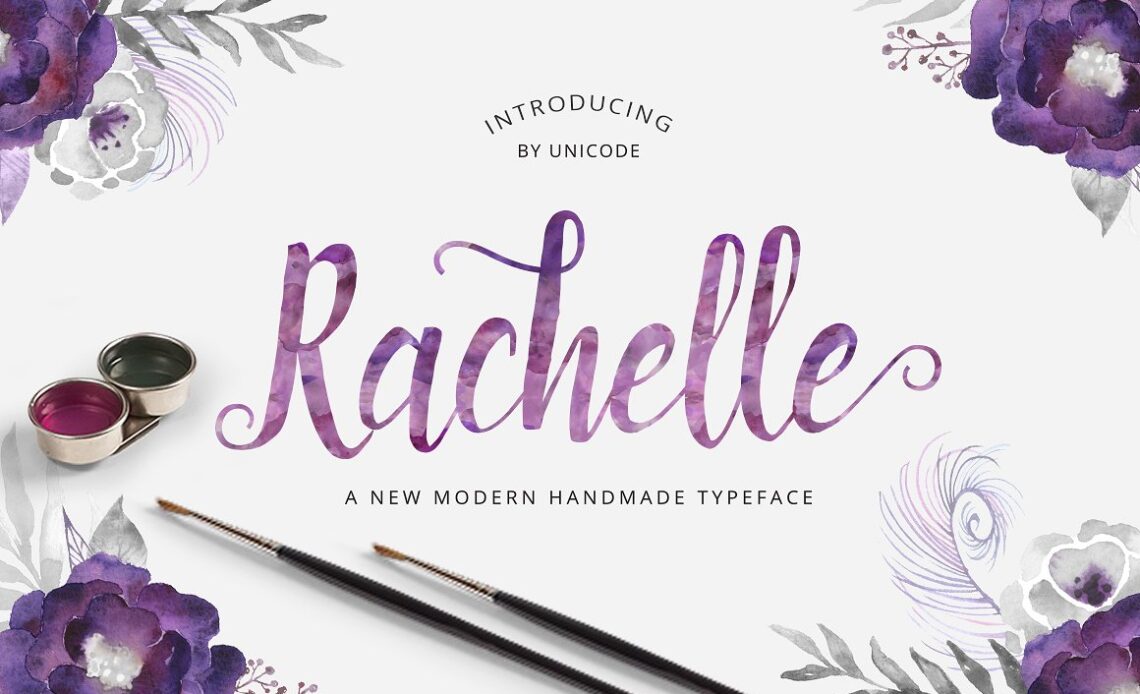
Introducing Rachelle Font - A Script Masterpiece Unleashing Elegance and Exclusivity
Journey into the world of Rachelle Font, a breathtaking creation by Unicode Studio that embodies the essence of timeless sophistication. This script font is more than just a collection of letters; it's an artistic expression that dances across your digital canvas with grace and charm. Prepare to be captivated by its enchanting swashes and harmonious curves, which bring a touch of elegance to every word you type.
With Rachelle Font, you hold the power to transform your creative projects into captivating masterpieces. Its meticulously crafted characters evoke a sense of playful elegance, making it the perfect choice for wedding invitations, romantic letters, personal branding, and social media posts that exude an aura of sophistication. Whether you're a seasoned designer or a creative enthusiast, Rachelle Font is your gateway to creating visuals that leave a lasting impression.
Beyond its visual appeal, Rachelle Font offers versatility that knows no bounds. Its carefully balanced strokes and varying weights allow you to effortlessly convey a range of emotions and messages. From heartfelt sentiments to playful greetings, Rachelle Font adapts seamlessly to your creative vision. Dive into a world of endless possibilities, where your imagination is the only limit.
At Unicode Studio, we understand that fonts are not just tools; they are expressions of your individuality and style. That's why we poured our hearts and souls into creating Rachelle Font, meticulously crafting each letterform to ensure it captures the essence of elegance and sophistication. With every download, you become part of a community of creative minds who appreciate the beauty of typography.
Embrace the allure of Rachelle Font today and embark on a creative journey that will leave you spellbound. Its magical swashes and timeless charm will elevate your designs to new heights, transforming your words into works of art. Join us in the world of Rachelle Font, where elegance meets creativity, and let your imagination run wild.